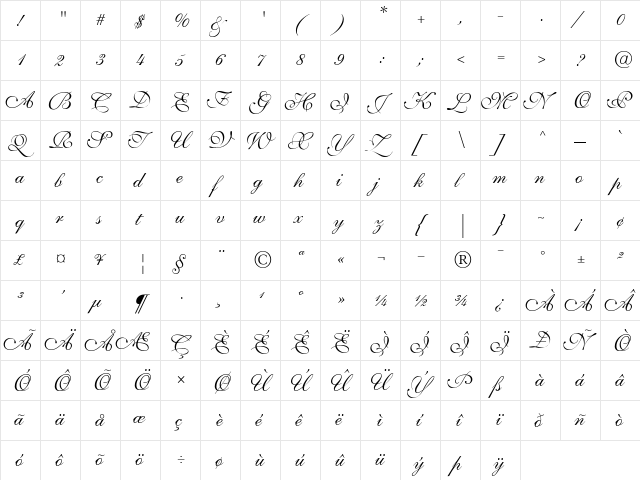
ShelleyVolanteScript RomanItalic
Design Context for ShelleyVolanteScript Typeface
ShelleyVolanteScript flows with the natural rhythm of handwritten lettering, making it ideal for designs that call for warmth and personal expression.
Font Pairing: Combine ShelleyVolanteScript with a simple geometric sans for maximum contrast — the tension between flowing curves and clean structure is a classic typographic pairing.
Pro Tip: Pair ShelleyVolanteScript with a clean sans-serif for supporting text. The contrast between fluid script and geometric structure creates an elegant typographic hierarchy.